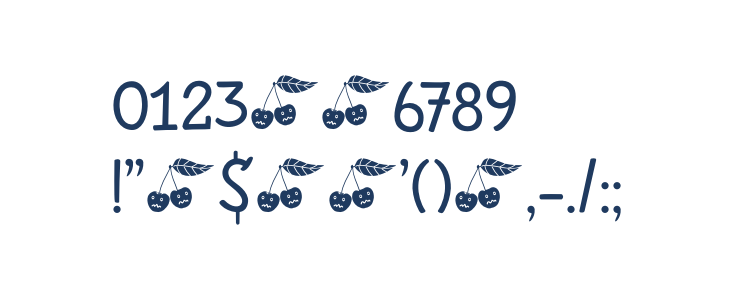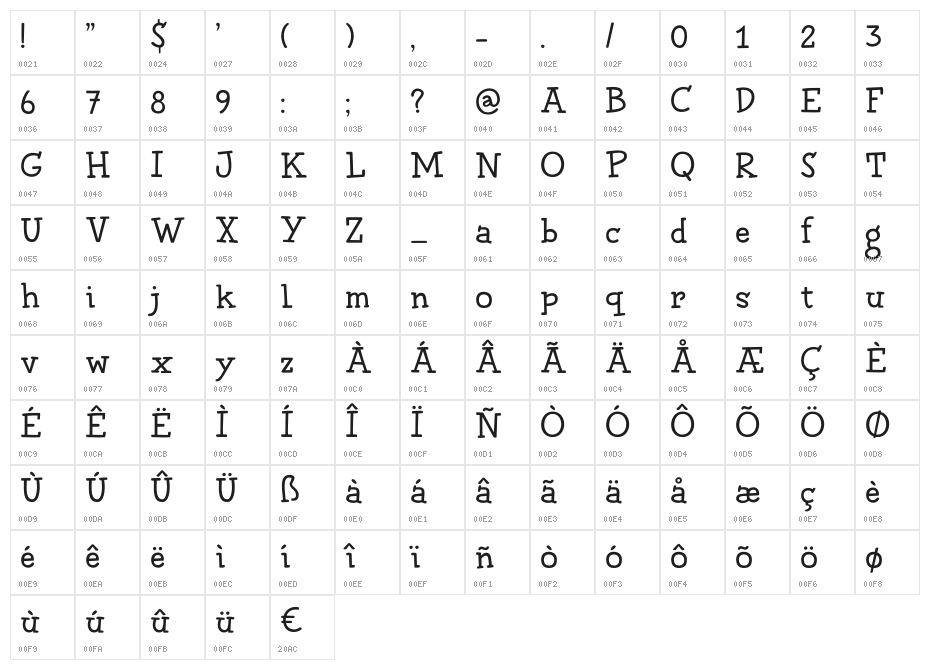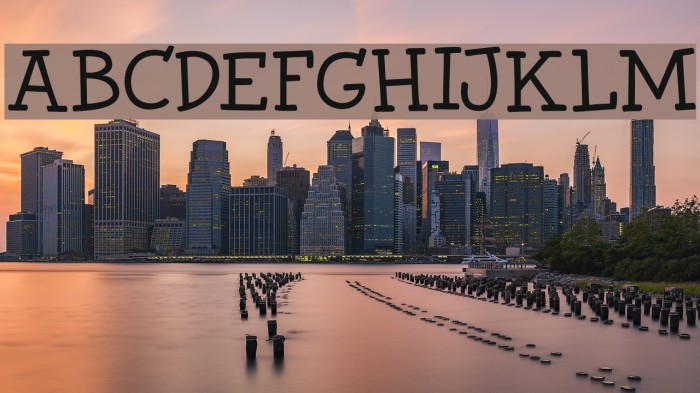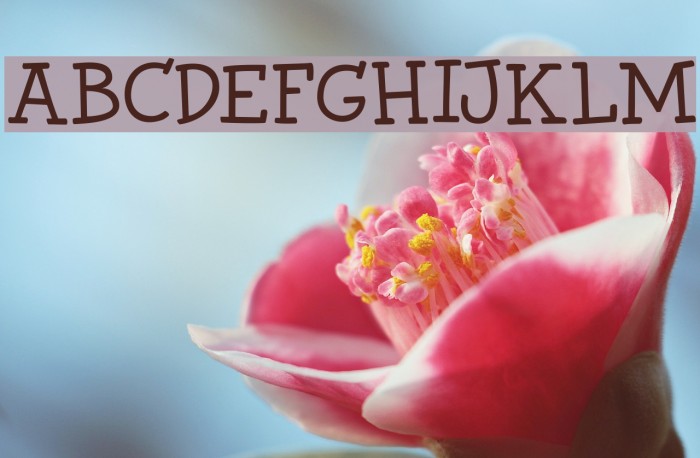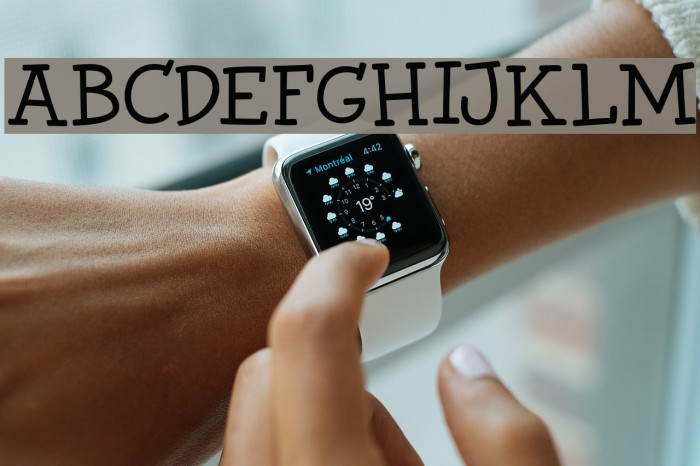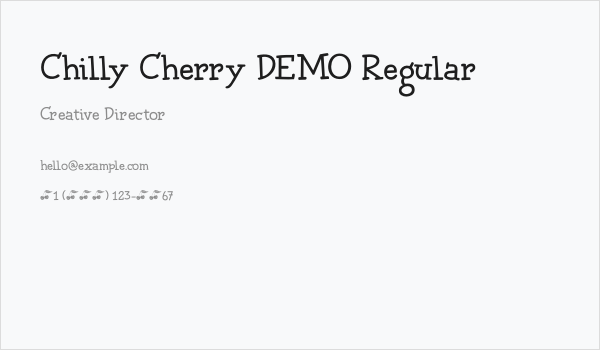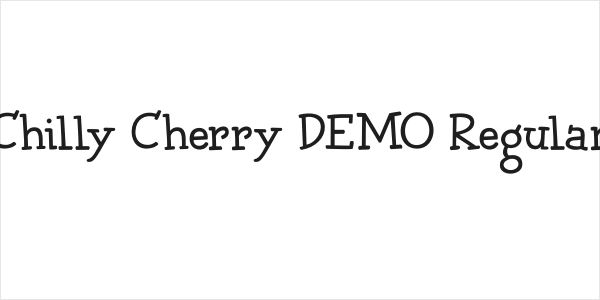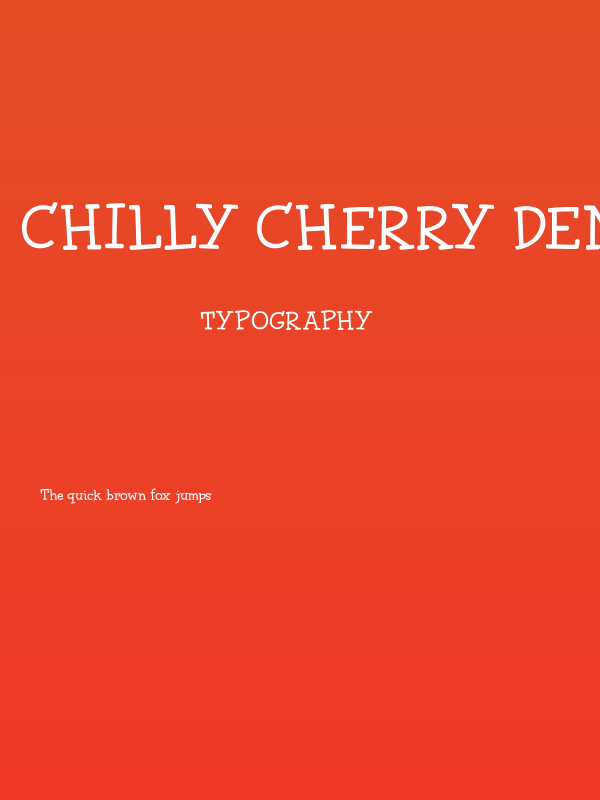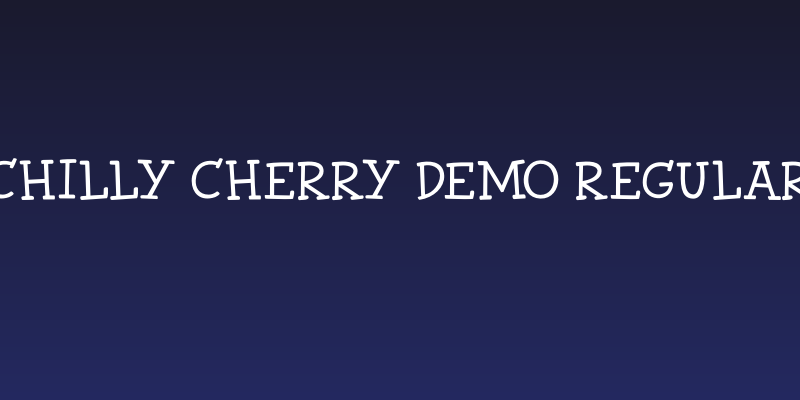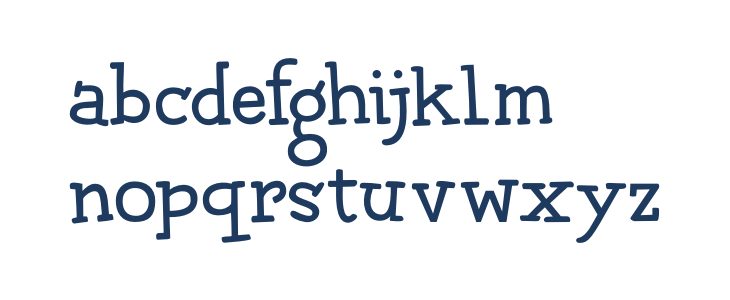
Chilly Cherry DEMO Regular Font
Chilly Cherry DEMO Regular Description
This playful and whimsical font features a hand-drawn style with a slightly irregular baseline, giving it a charming and informal appearance. The characters are bold and rounded, with a friendly and approachable feel. The uppercase letters are tall and slightly narrow, while the lowercase letters maintain a consistent height with gentle curves. The numbers are distinct and easy to read, matching the overall playful theme. Special characters include fun cherry icons, adding a unique decorative touch to the font. This font is perfect for projects that require a lighthearted and cheerful vibe.
| Overall Style | Whimsical, Playful |
| Proposed Projects | Ideal for children's books, playful branding, greeting cards, and creative posters. |